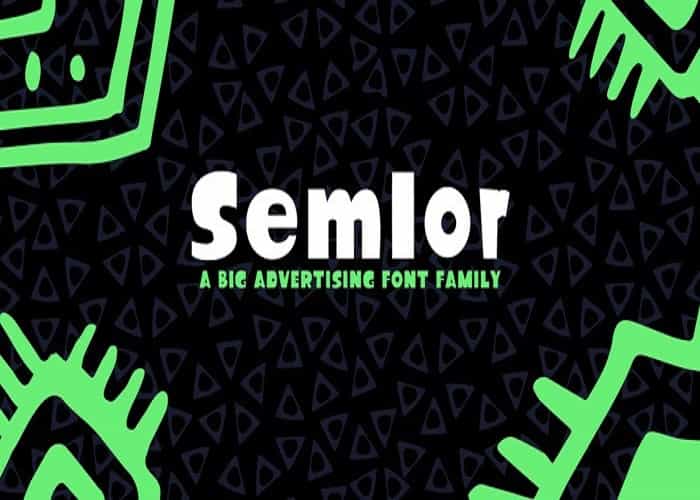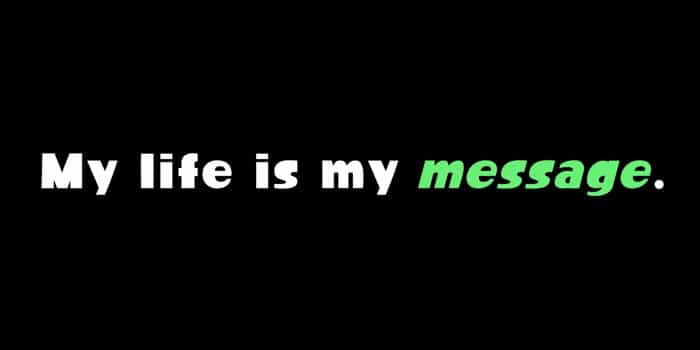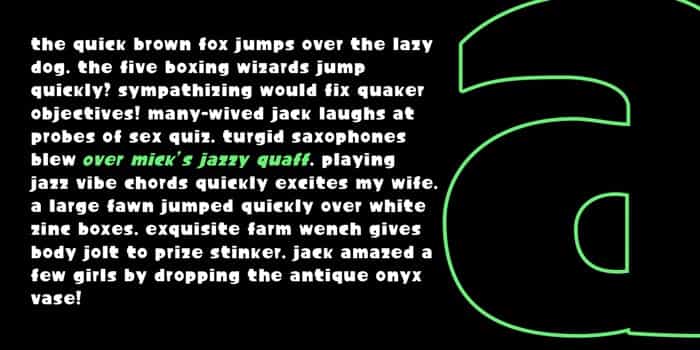
Semlor is a display type font that has a carefree and joyful look. It is just right for all of your design work including holiday decorations, Earth Day t-shirts, journals and coloring books, easter baskets and mugs, party banners etc.